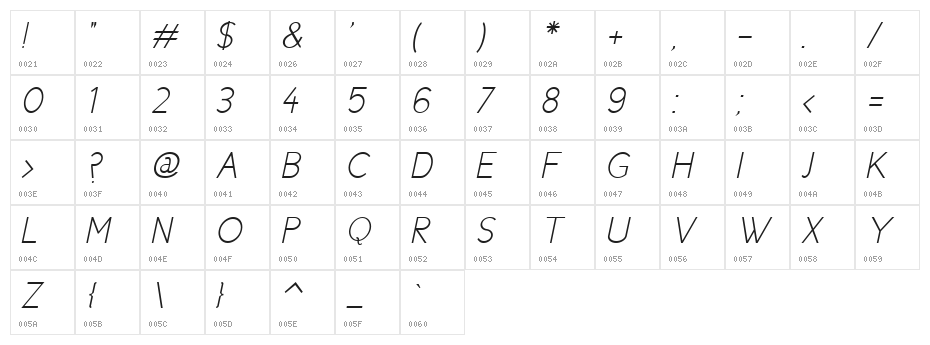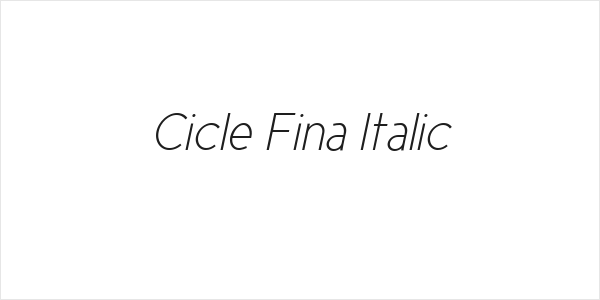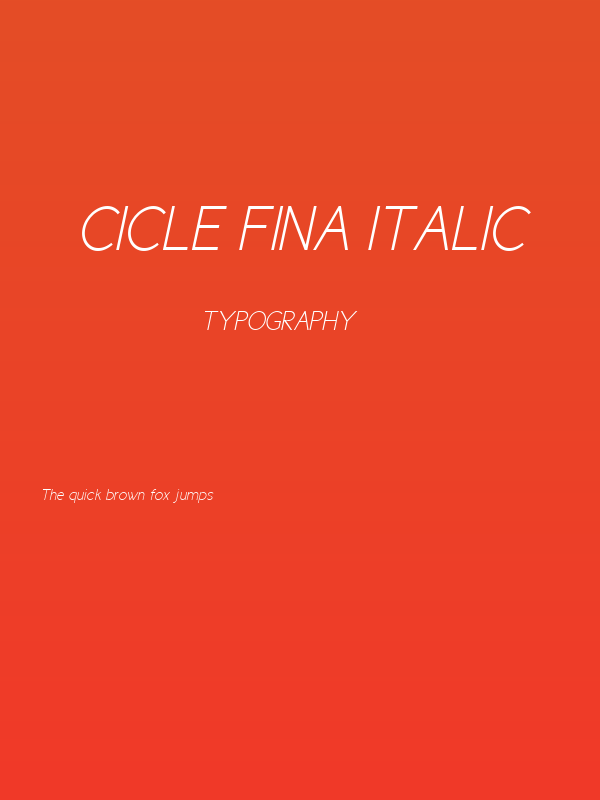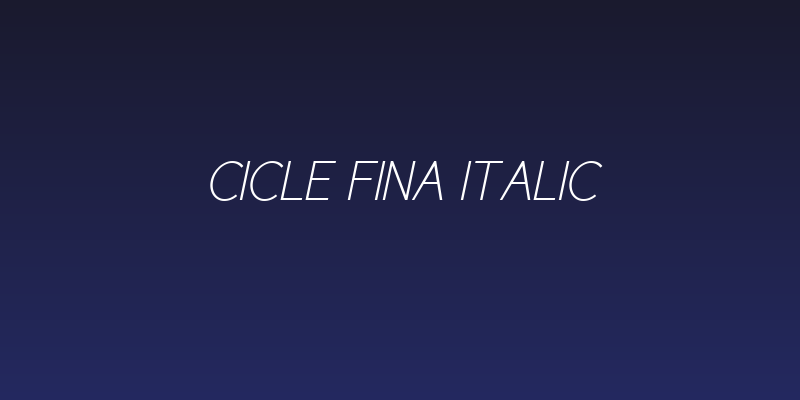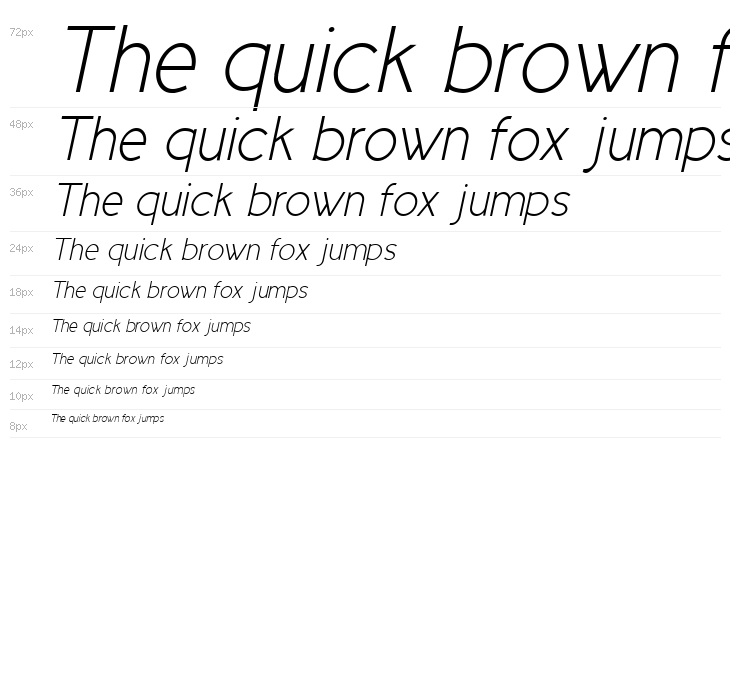
Cicle Fina Italic Font
Cicle Fina Italic Description
This font features a sleek and modern design with a subtle italic slant, giving it a dynamic and elegant appearance. The characters are thin and elongated, contributing to a sense of sophistication and fluidity. The overall design is clean and minimalistic, making it suitable for contemporary applications. The uppercase and lowercase letters maintain a consistent style, with smooth curves and sharp edges that enhance readability. The numerals and special characters are designed to complement the alphabet, ensuring a cohesive look across all text elements.
| Proposed Projects | Ideal for fashion magazines, modern branding, elegant invitations, and digital content that requires a contemporary touch. |